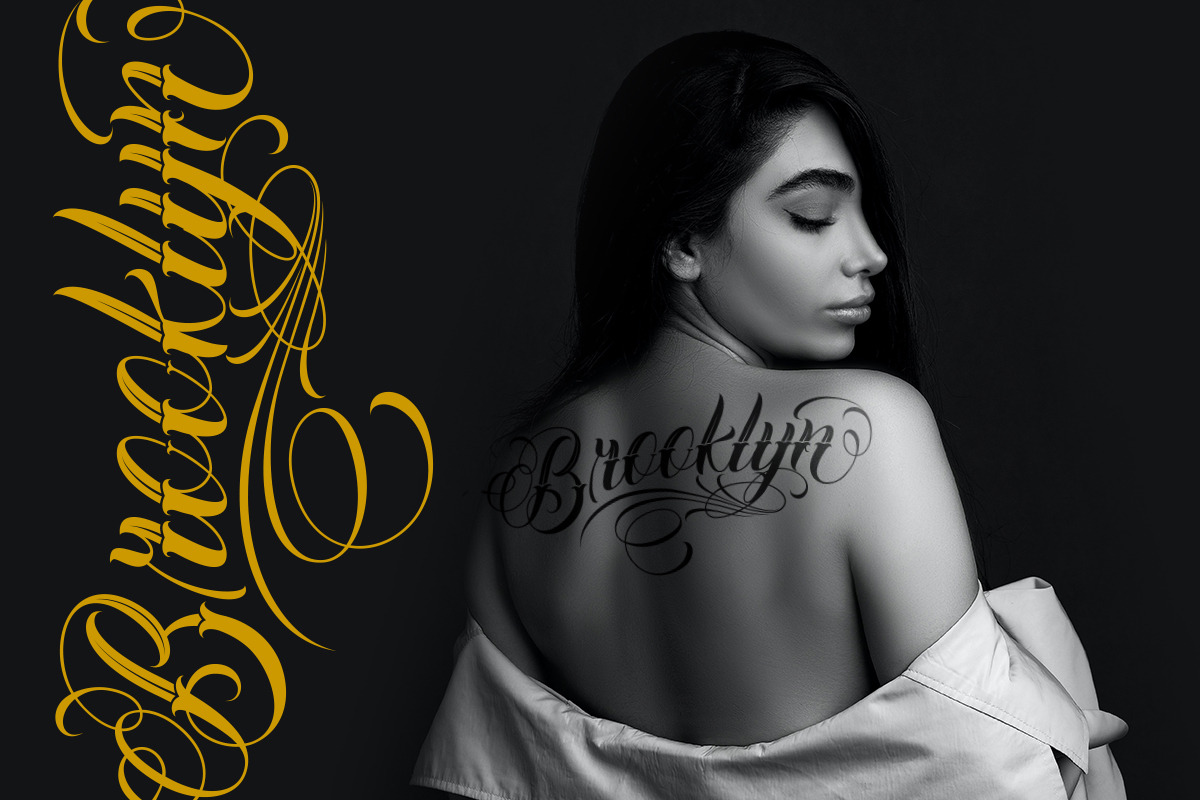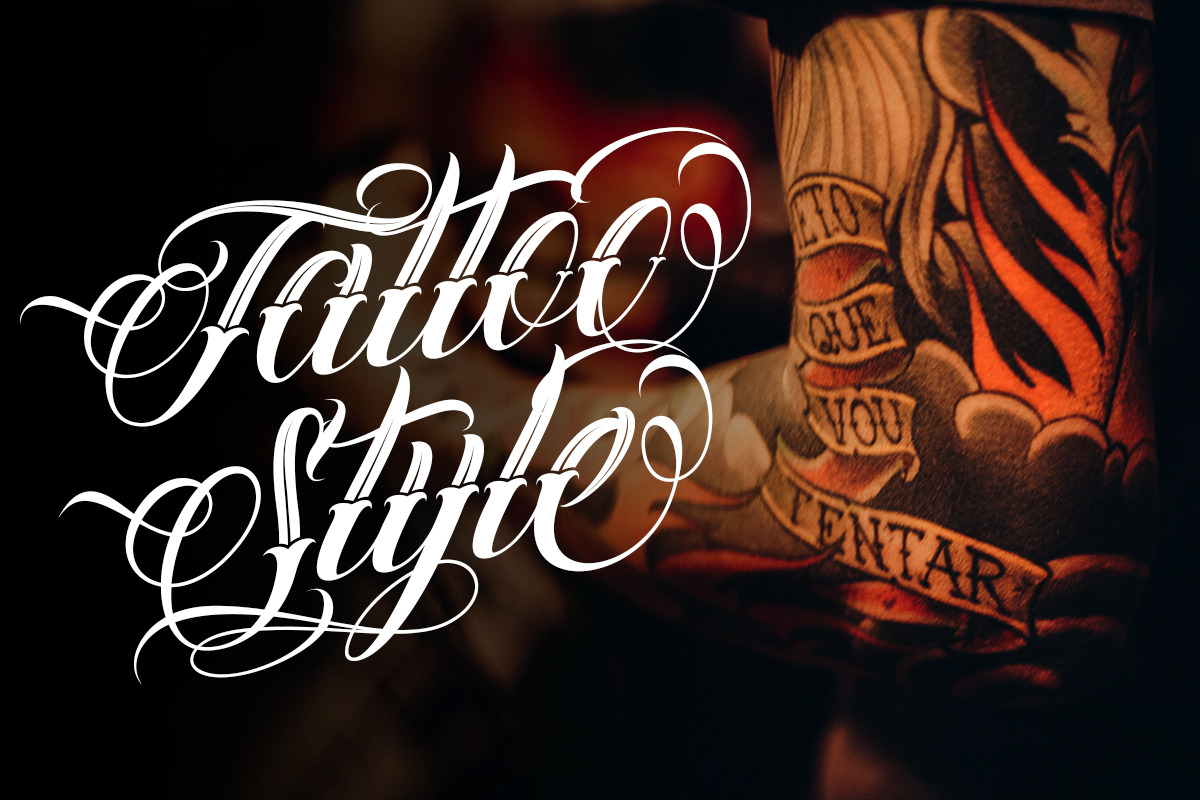
Chicano Vol. 02 | Tattoo style
Introducing of our new product the name Chicano Vol. 02 Font | Tattoo Style. Chicano Vol. 02 includes uppercase and lowercase letters, numerals, a large range of punctuation and ligatures. All lowercase letters include ending swashes and alternative font.